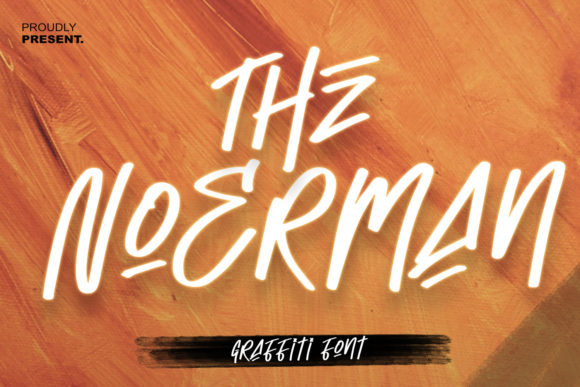
The Noerman Font
Adorn your designs with the Noerman Font, a captivating display font brimming with urban flair. Inspired by the vibrant energy of street art, this font exudes a bold and edgy aesthetic, perfect for making a statement.
Unleash your creativity and let your designs take center stage with the Noerman Font. Its graffiti-inspired style adds a touch of rebellion and individuality, making it the ideal choice for t-shirts, sportswear, logos, advertisements, and clothing that demands attention.
Immerse yourself in the world of The Noerman Font, a font that speaks to the rebels, the dreamers, and the nonconformists. Embrace the raw energy of street art and let your designs reflect your unique point of view.
The Noerman Font is more than just a font; it's an expression of your personality, a reflection of your style. Use it to create designs that captivate and inspire, designs that leave a lasting impression.
Don't settle for ordinary fonts. Choose the Noerman Font and elevate your designs to new heights. Let your creativity flow freely and let the Noerman Font be your muse. Stand out from the crowd and make a statement with every design you create.